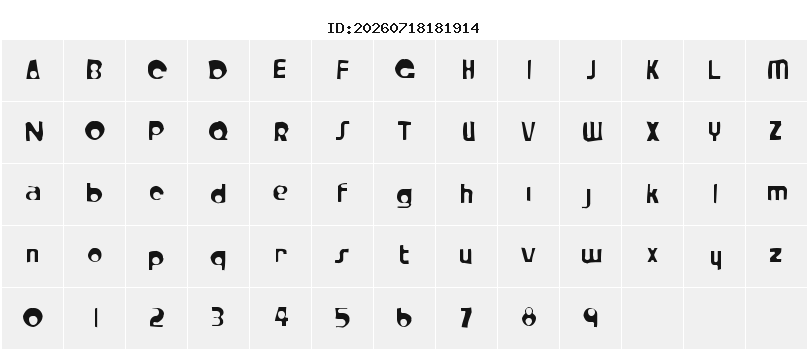
• Font Name: Crystal Radio Kit Gaunt
• Designer: Ray Larabie
About Crystal Radio Kit Gaunt.ttf
Crystal Radio Kit Gaunt.ttf is a modern, elegant sans-serif font designed for ultimate readability and visual harmony. Perfect for branding, headlines, web design, and print materials.